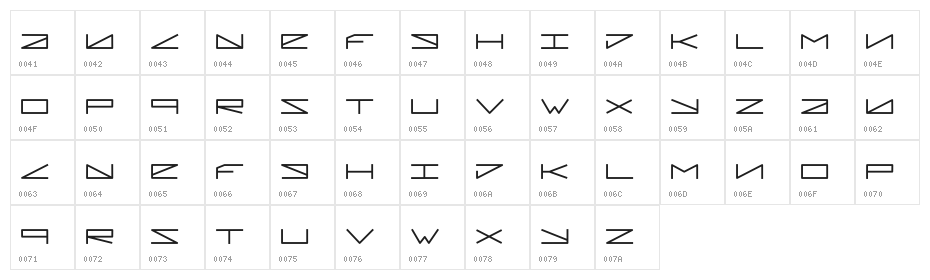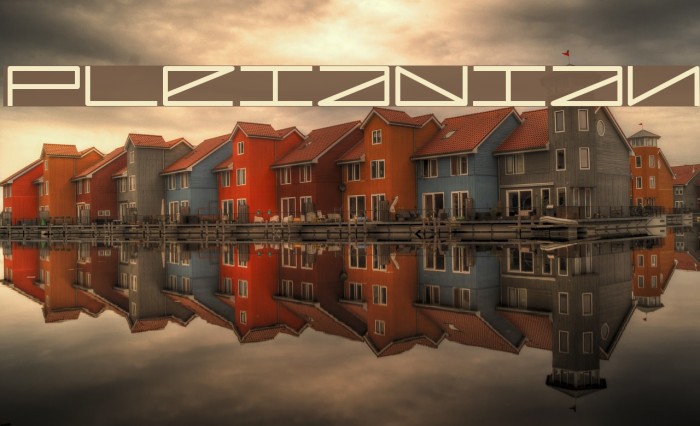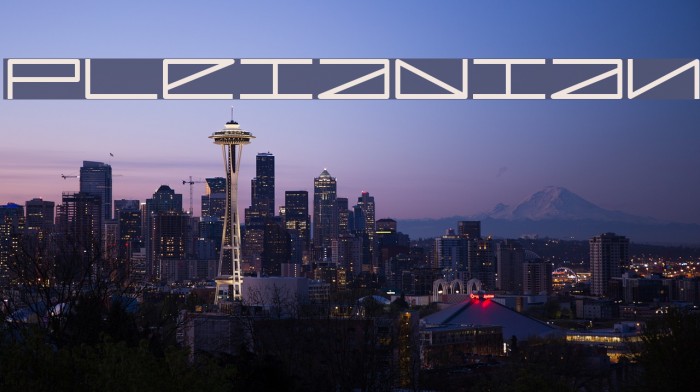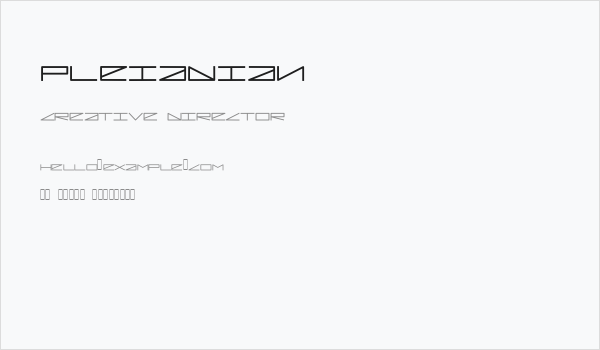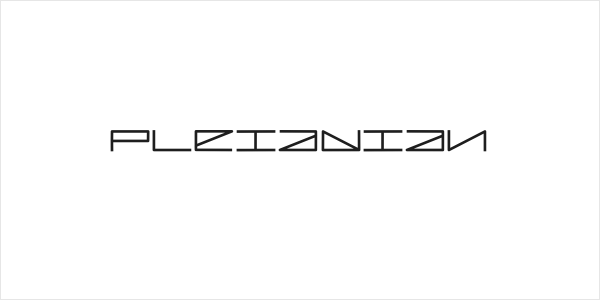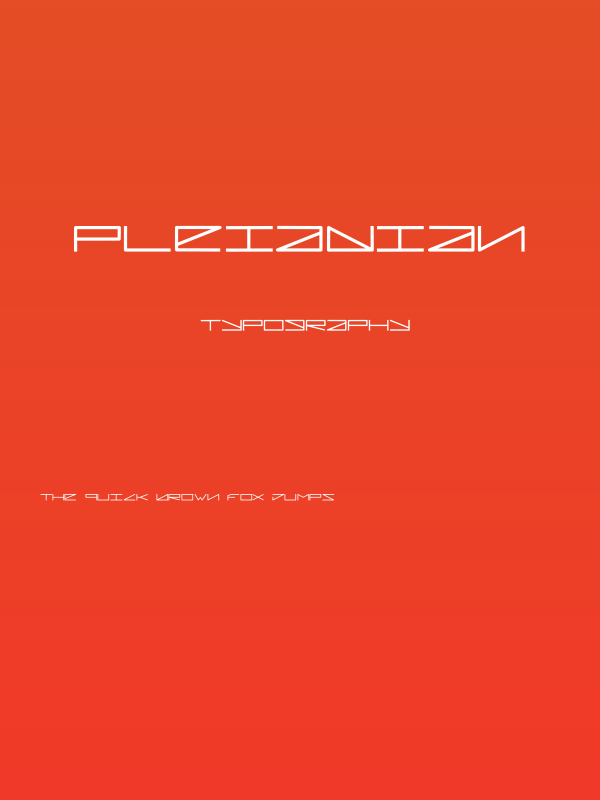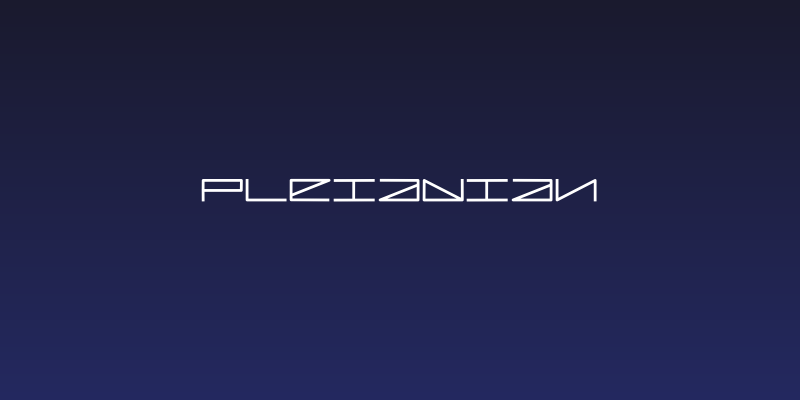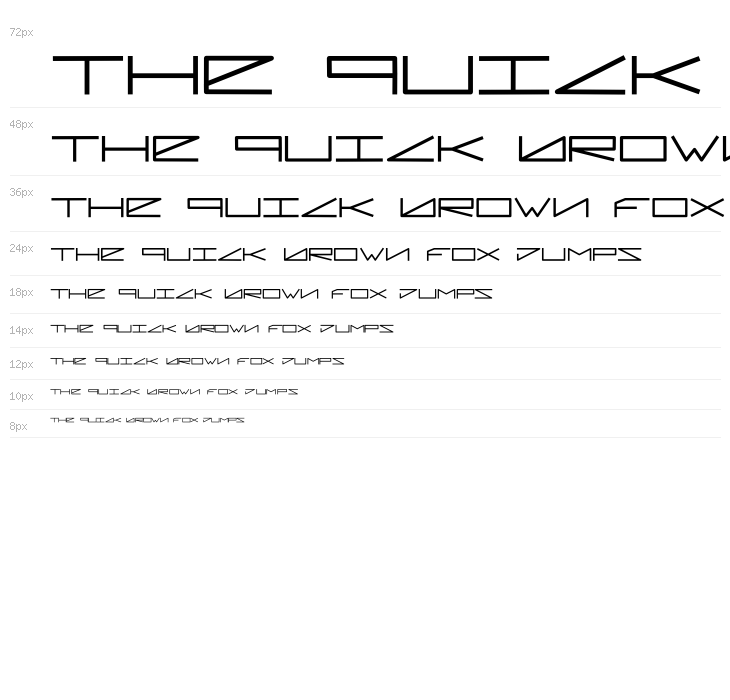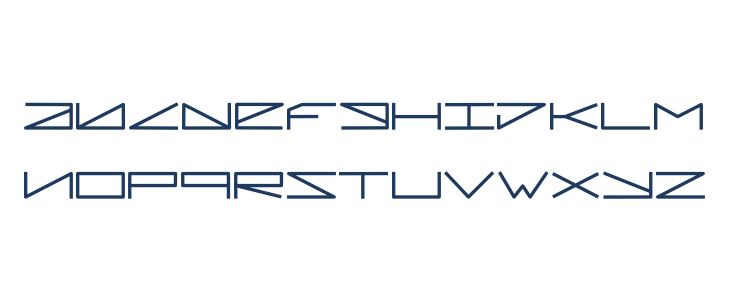
Pleiadian Font
Pleiadian Description
This font features a futuristic and angular design, characterized by sharp edges and geometric shapes. The letters are constructed with straight lines and acute angles, giving it a distinct, modern appearance. The uppercase letters are particularly striking, with unique forms that emphasize symmetry and precision. The lowercase letters maintain the same angular style, ensuring consistency throughout the typeface. The numbers and special characters are designed to match the overall aesthetic, making this font suitable for projects that require a cutting-edge and innovative look.
Proposed ProjectsIdeal for sci-fi themed designs, technology branding, video game interfaces, and modern posters.